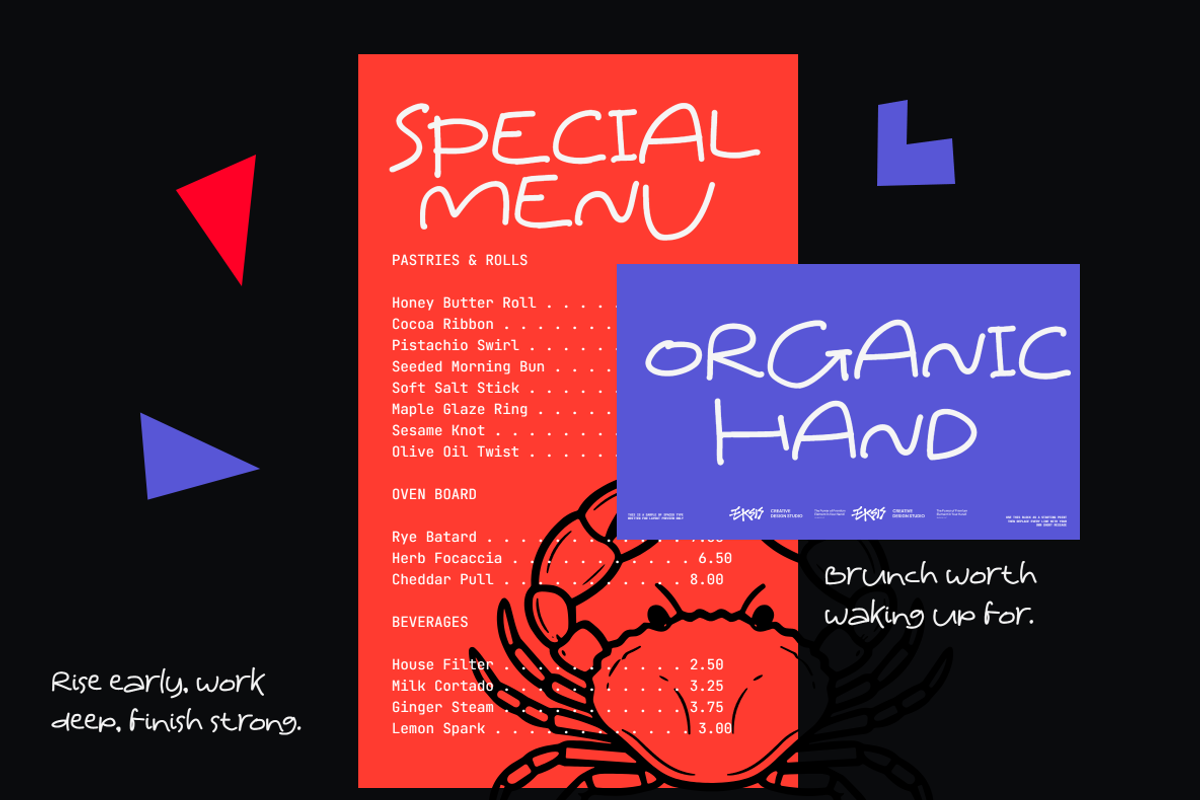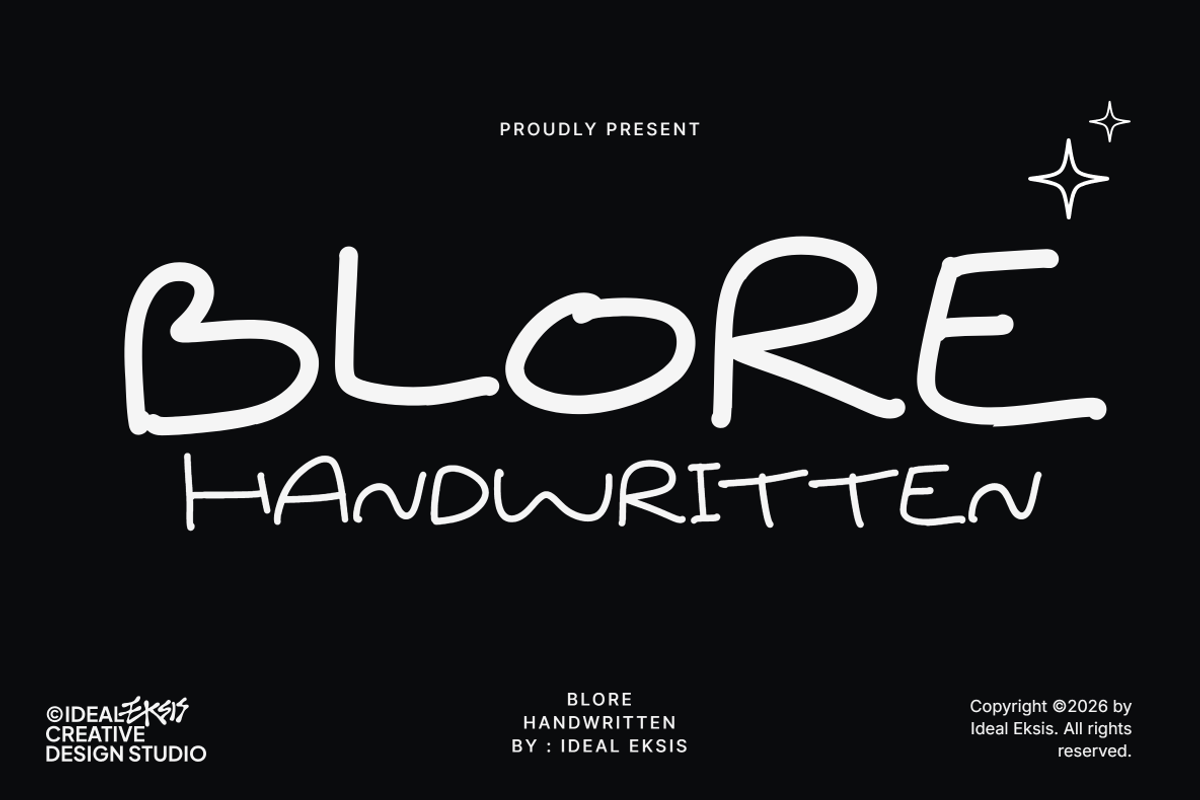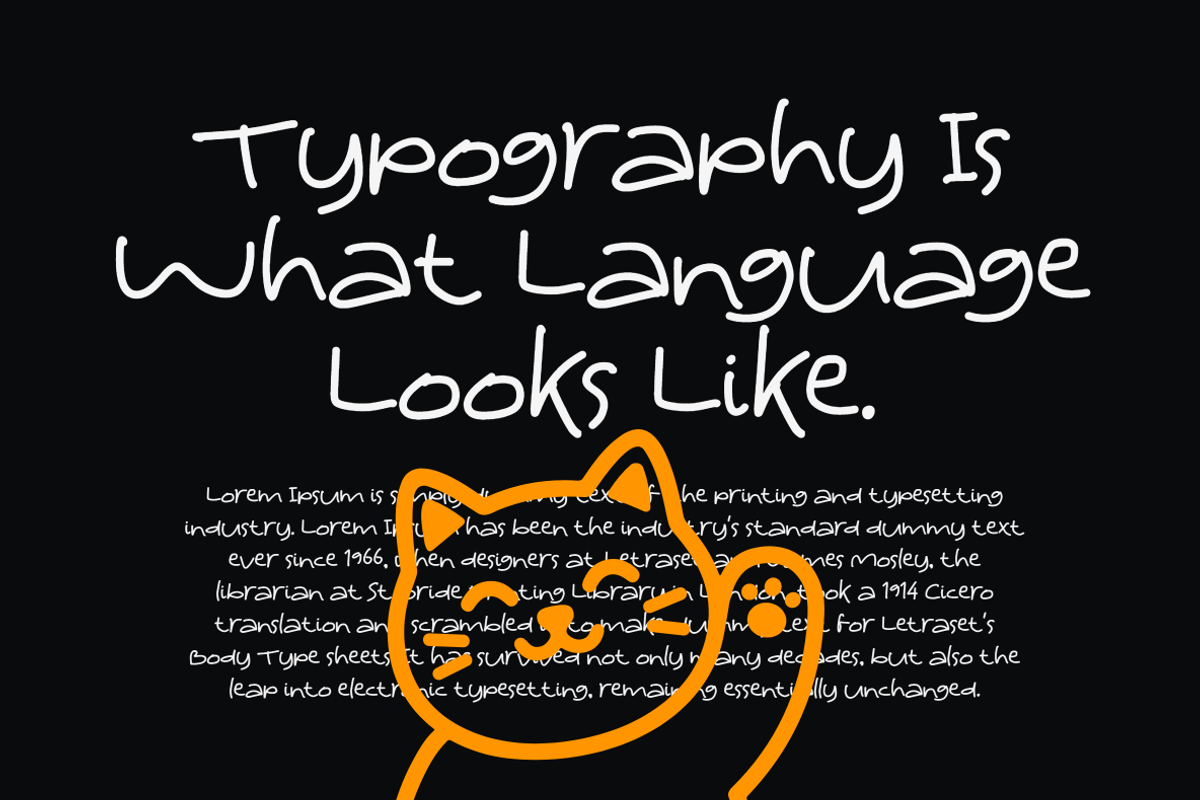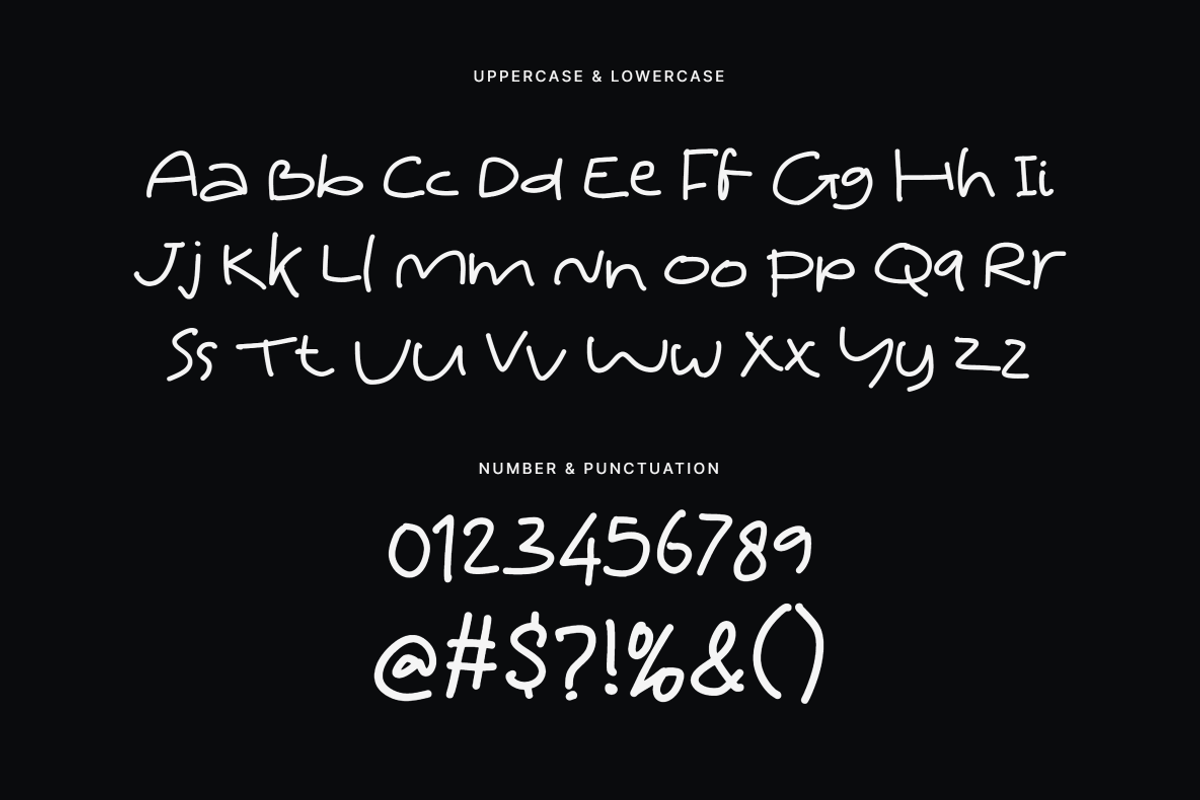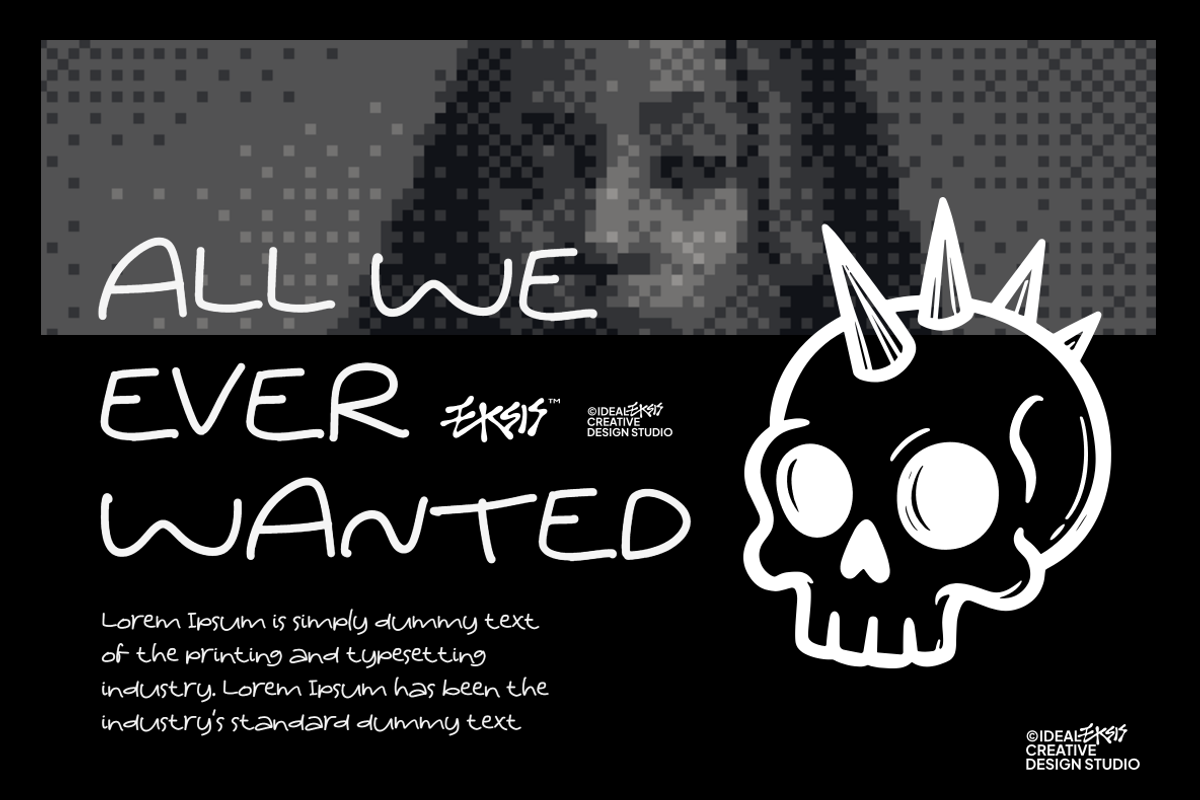
Blore Handwritten
A playful and organic handwritten font featuring a consistent monoline stroke weight with rounded terminals. The letterforms exhibit a charmingly uneven, hand-drawn quality that gives it a friendly and approachable personality. Its wide, open counters and relaxed spacing make it highly legible while maintaining a casual, doodle-like aesthetic. This typeface is perfect for informal branding, social media graphics, packaging, children's books, and creative projects that require a personal, human touch.